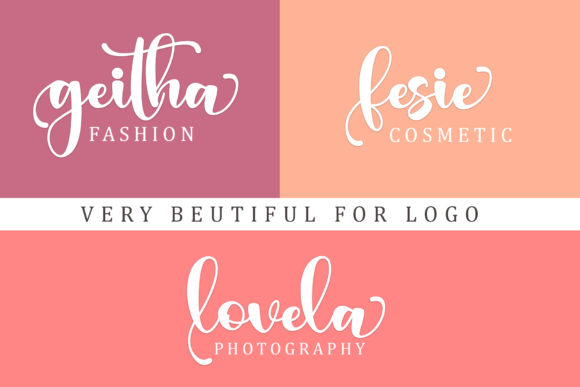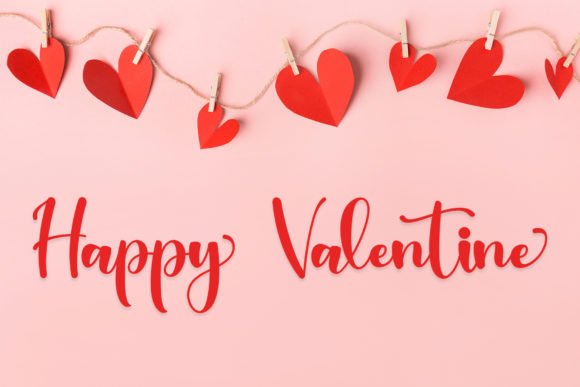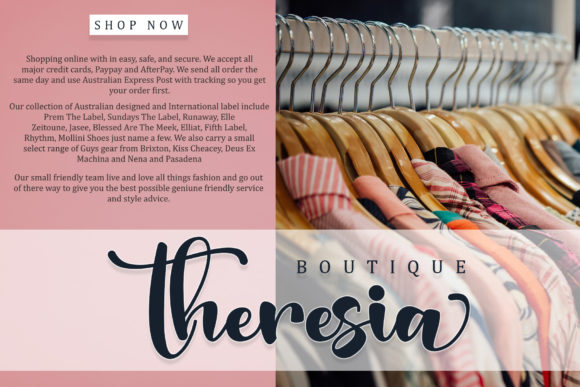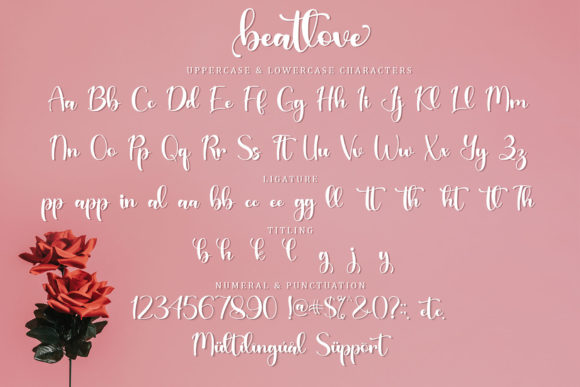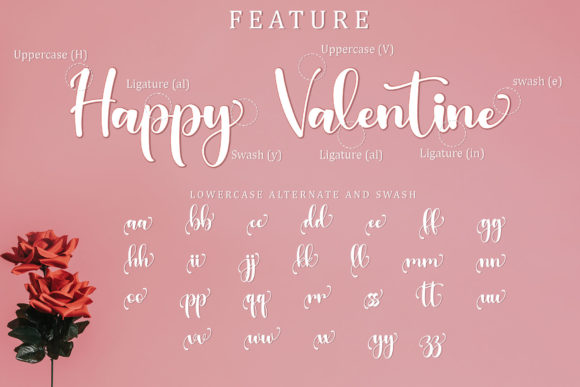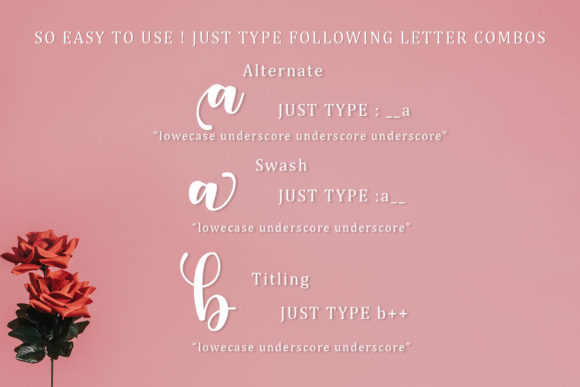
Love is in the Air: Introducing the Beatlove Font
Have you ever been rummaging through your grandmother’s old trunk, filled with dusty letters and faded photographs? As you carefully unfold a worn-out love letter, you can’t help but feel a sense of nostalgia wash over you. The handwriting, the words, the love – it all comes together to create a moment that’s nothing short of magic. That’s exactly the kind of emotional connection we want to capture with the Beatlove Font.
Beatlove is a sweet and delicate handwritten font, designed to bring a touch of romance and whimsy to your designs. Whether you’re crafting wedding invitations, cards, or any other project that requires a personal touch, this font is the perfect choice. Its dainty and joyful style makes it an ideal addition to any design that needs to convey love, warmth, and happiness.
Beatlove Font Key Features
- Unique Characteristics: The font features a unique blend of modern and vintage elements, creating a distinctive and eye-catching visual style.
Beatlove Font Review
Overall, I think the Beatlove font is a solid choice for designers who want to add a touch of romance and elegance to their projects. Here are some things that work well:
- ✨ Beautiful cursive script: The Beatlove font has a lovely, flowing cursive script that’s perfect for titles, quotes, and other text elements that need a bit of flair.
- ✨ Wide range of languages supported: I was impressed to see that the Beatlove font supports a wide range of languages, making it a great choice for international projects.
- ✨ Good legibility: Even at smaller font sizes, the Beatlove font remains easy to read, which is a must for any font.
- ⚠️ Limited bold and italic options: While the Beatlove font has a lovely script, the bold and italic options are a bit limited, which may not be ideal for projects that require a lot of emphasis.
- ⚠️ Not ideal for body text: Due to its cursive script, the Beatlove font may not be the best choice for large blocks of body text, as it can be difficult to read at smaller font sizes.
Overall, I’d say the Beatlove font is a great choice for designers who want to add a touch of elegance and romance to their projects. Just be aware of its limitations and use it thoughtfully.
Tips for Getting the Most Out of Beatlove Font
For best results, use Beatlove Font in conjunction with bold or italic styles to create a visually appealing contrast.
Additionally, use it in combination with a clear and concise message to make your design stand out.
Beatlove Font is ideal for use in wedding invitations, baby shower invitations, and other romantic or celebratory designs.
It’s also great for use in branding and logo design where a unique and memorable font is desired.